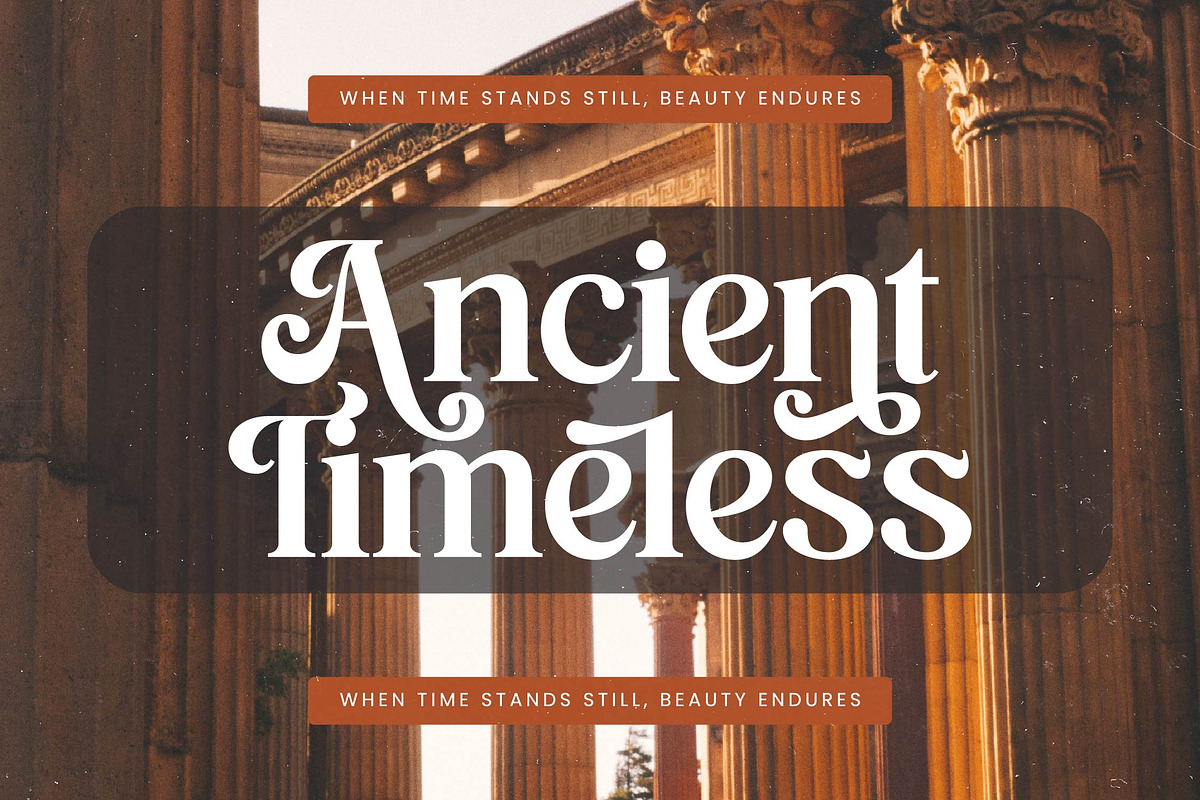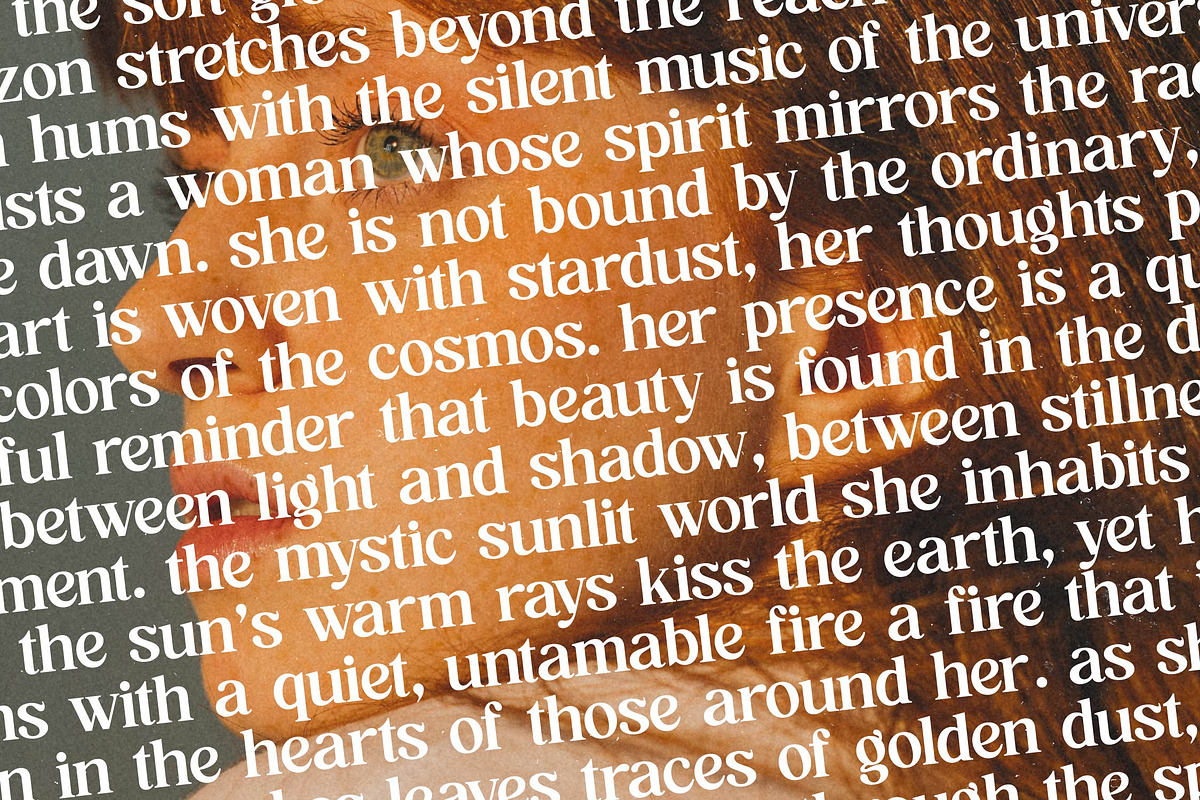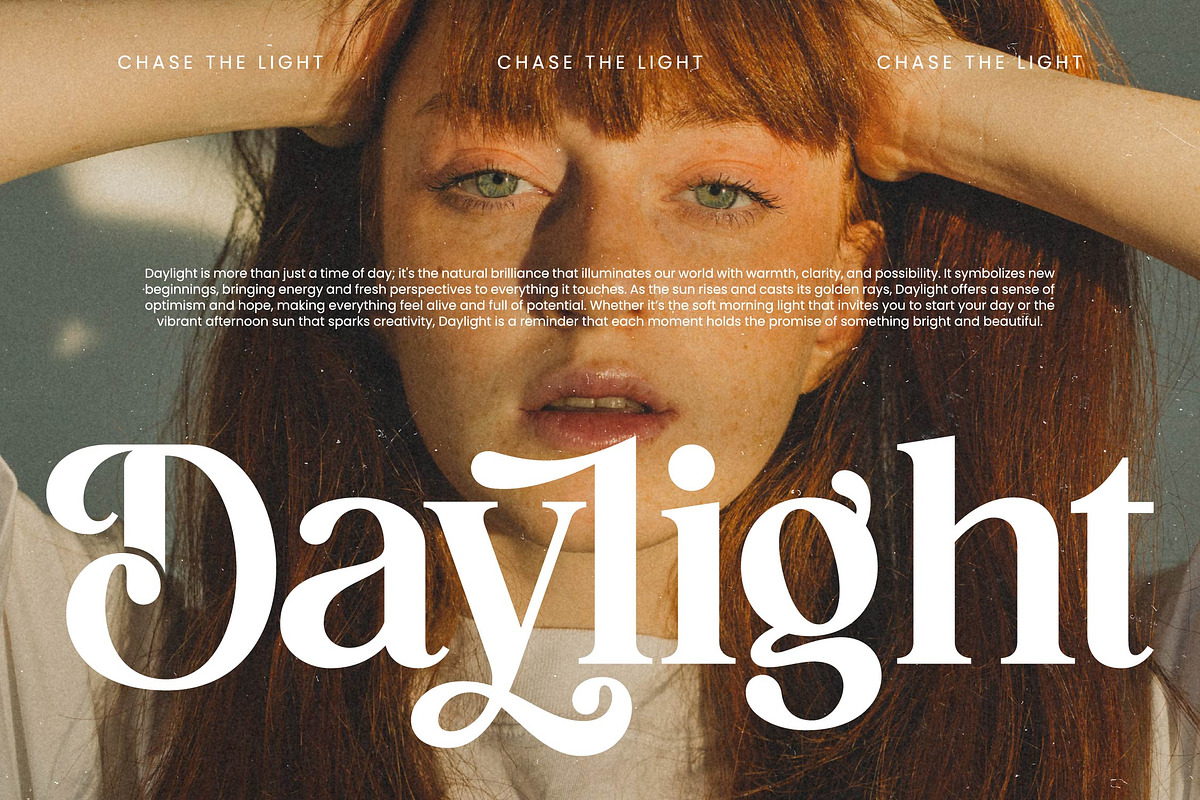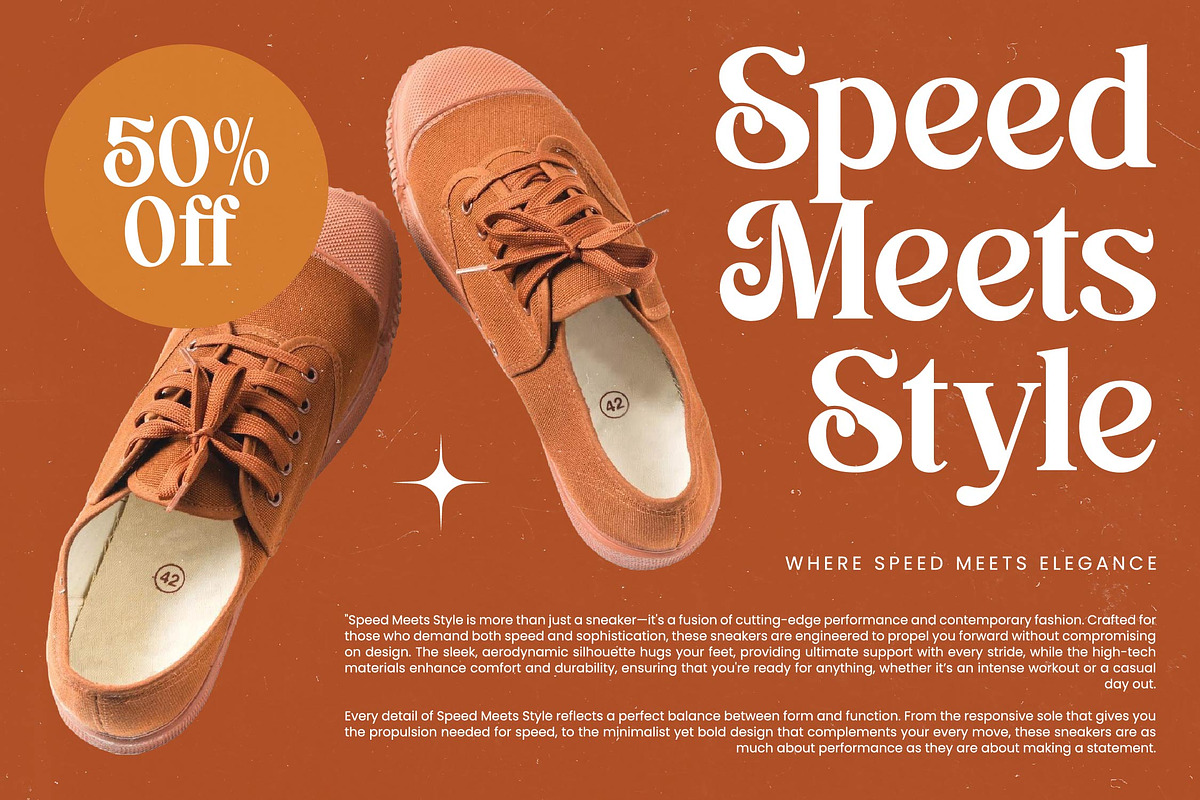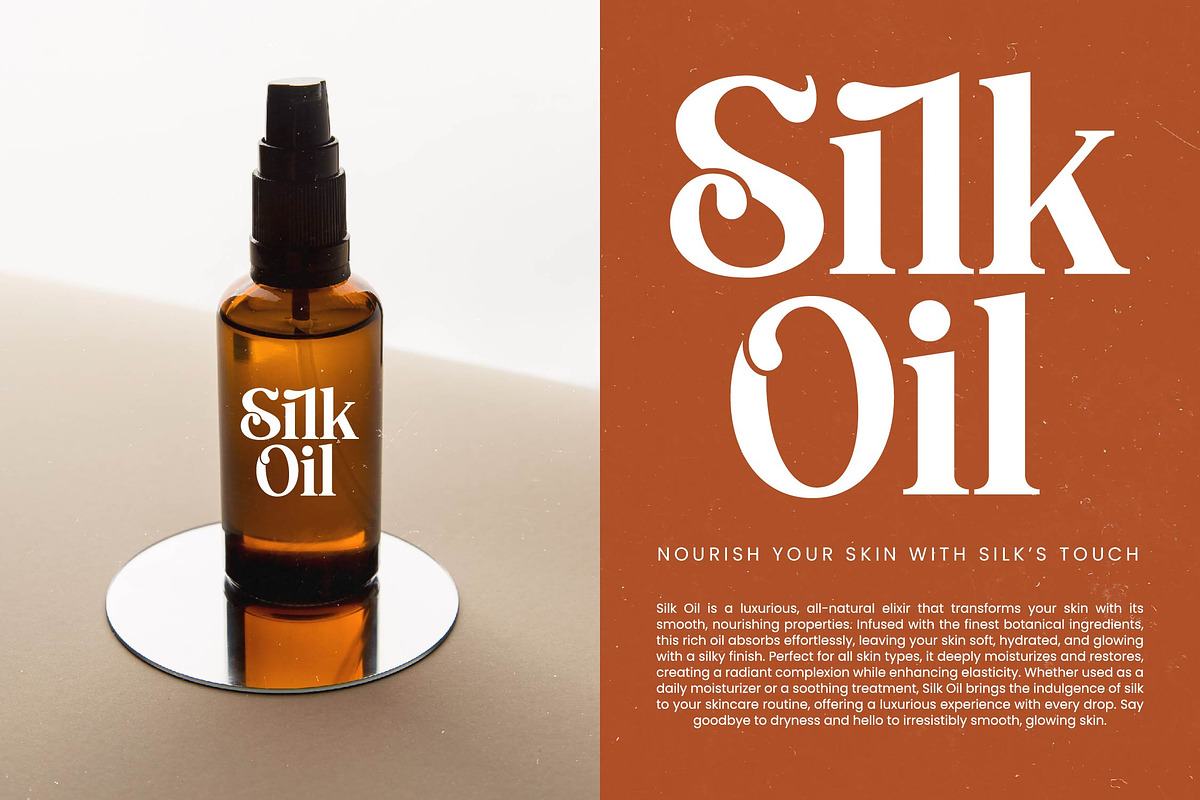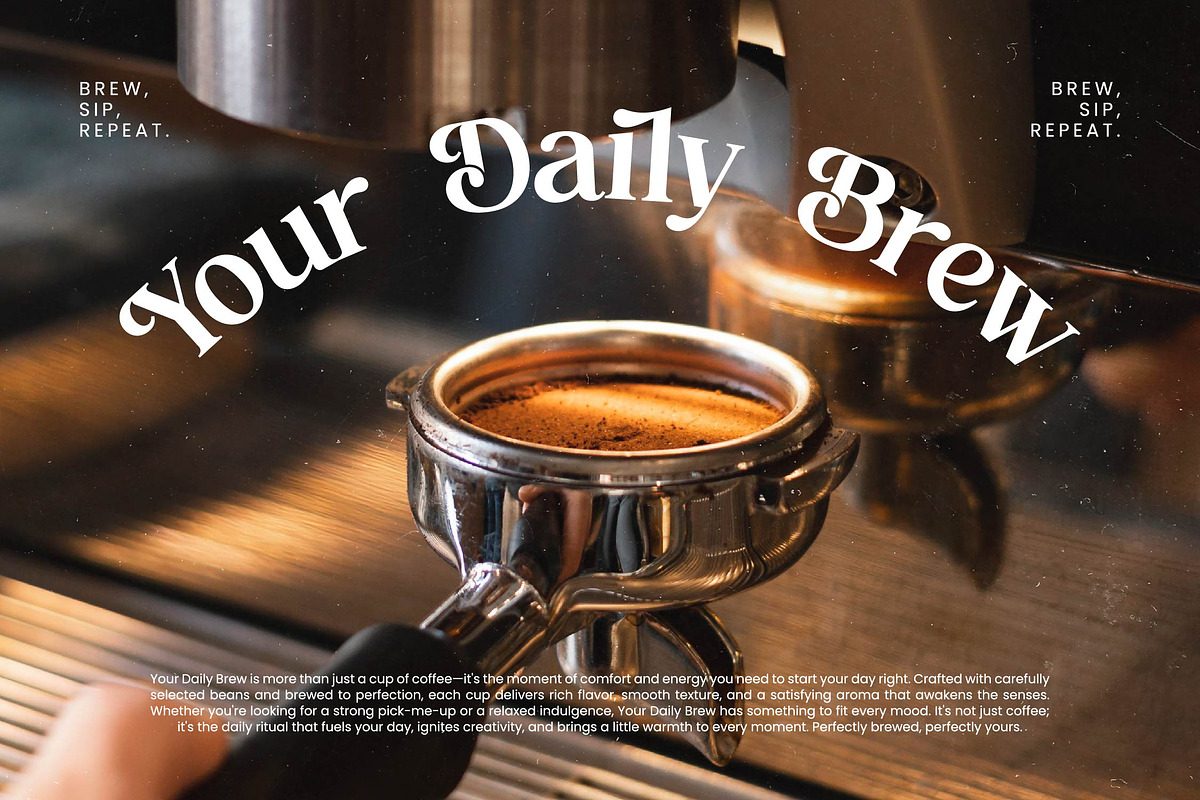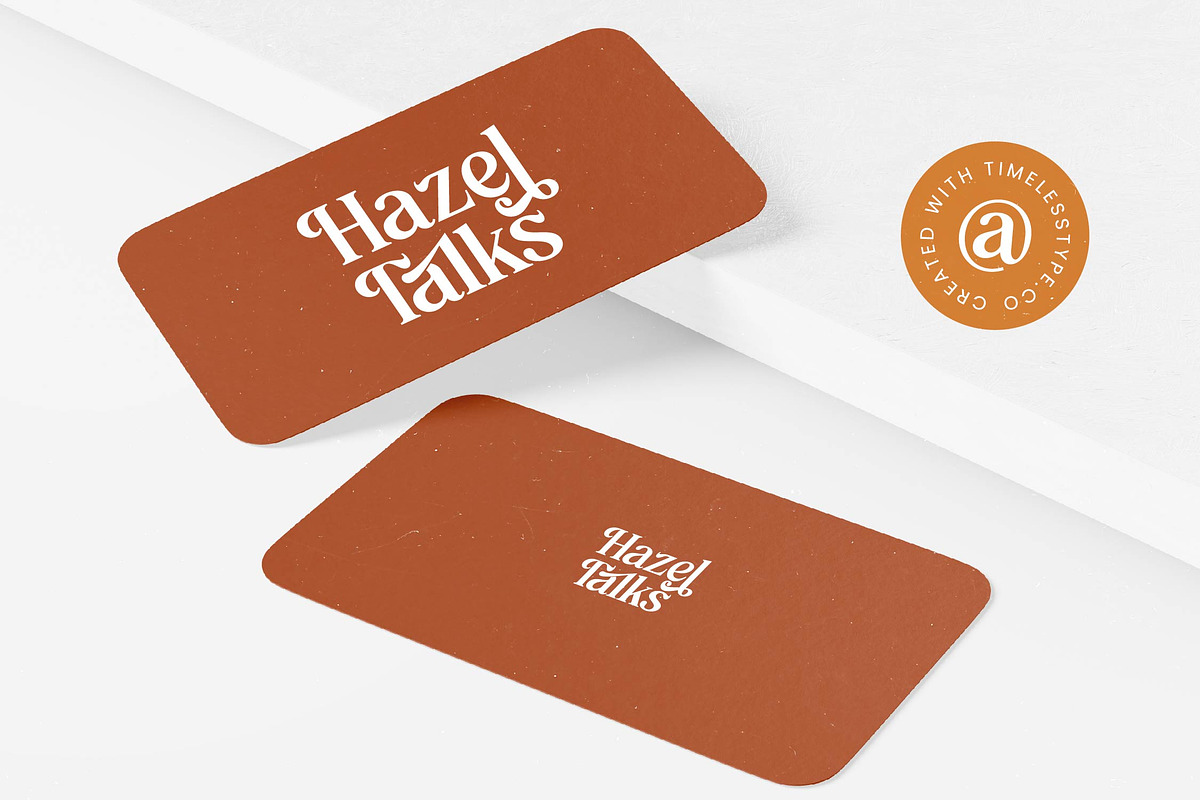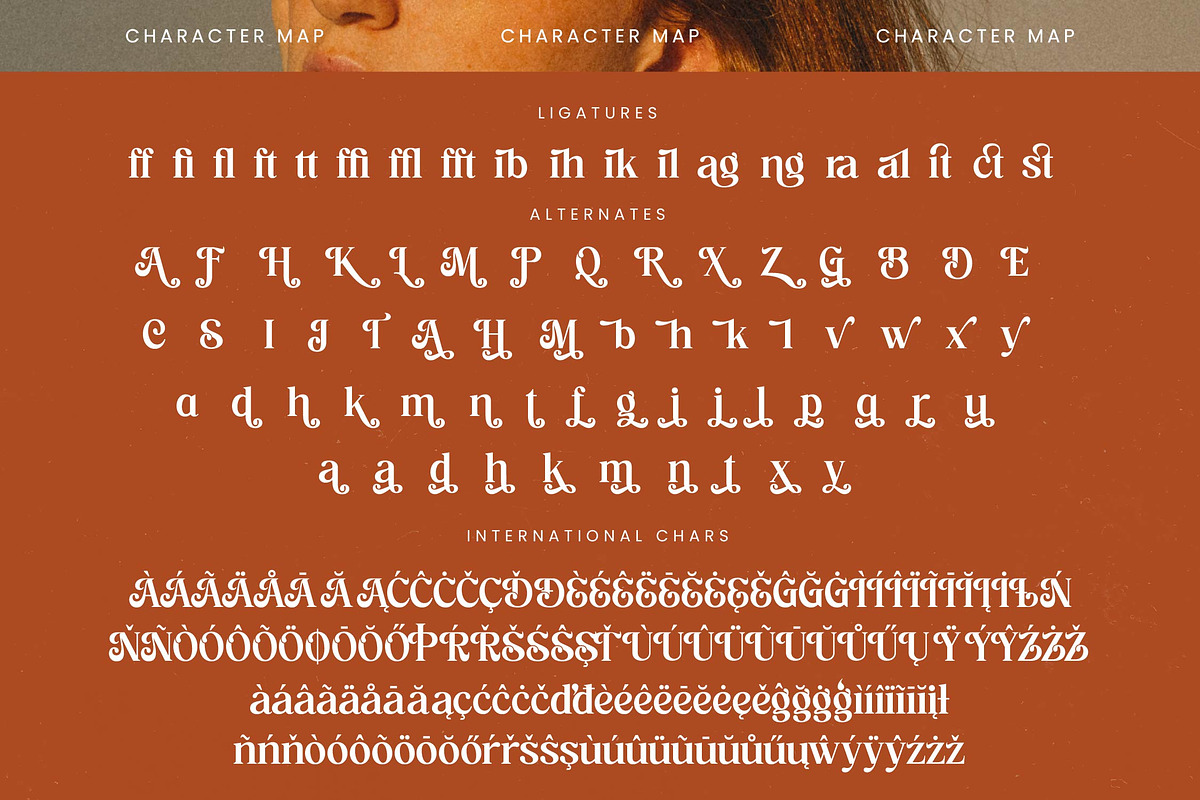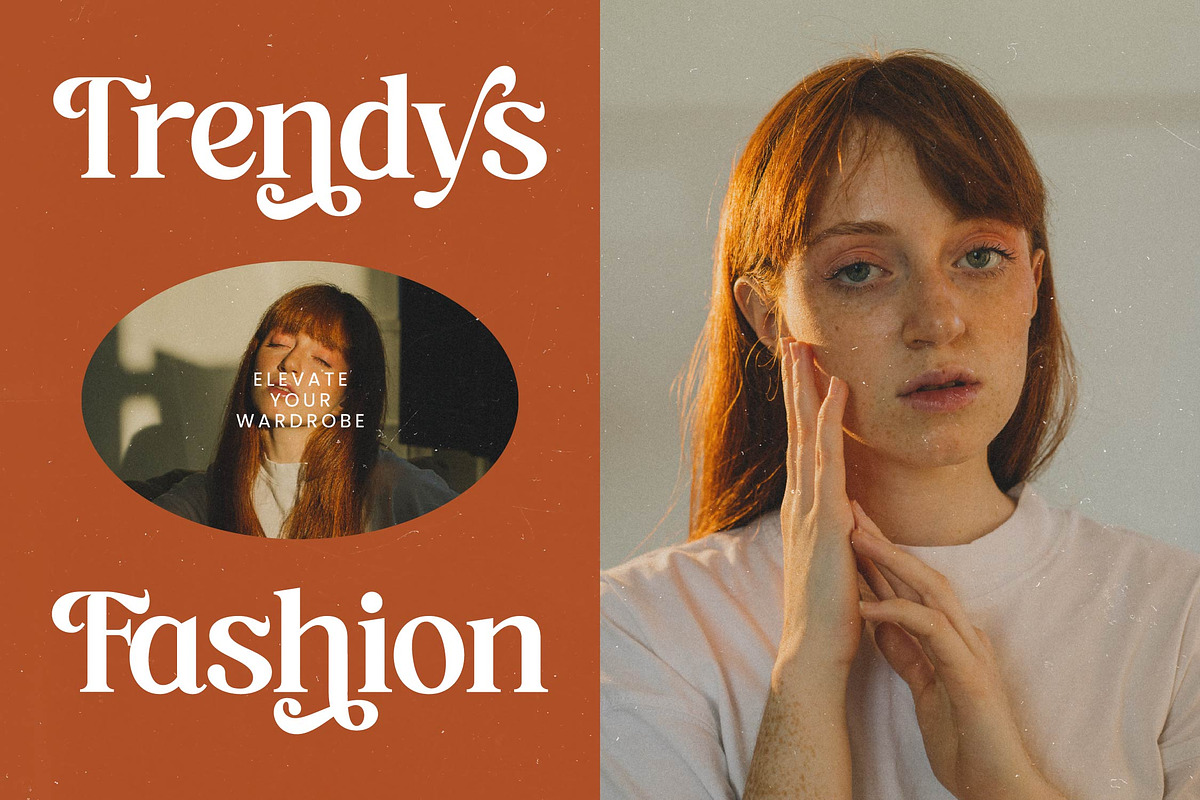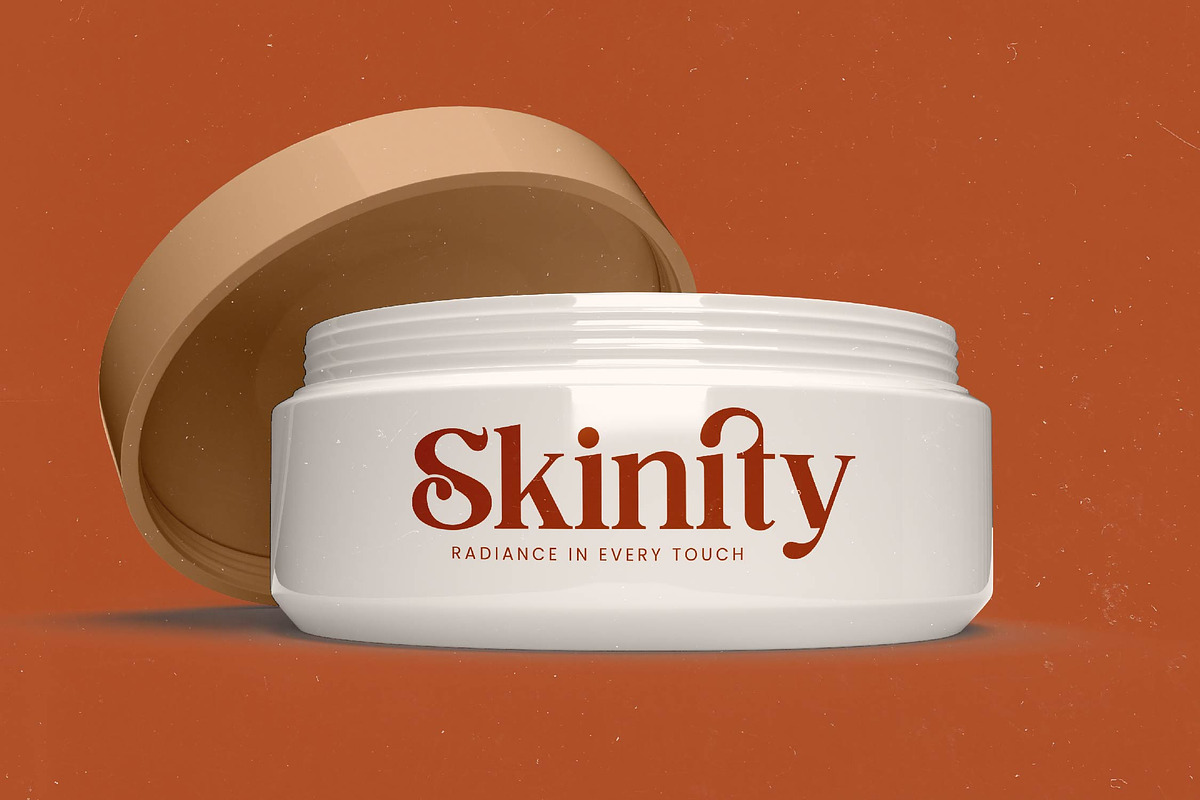
Mystic Sunlite Groovy Serif Font
Experience the ethereal glow of Mystic Sunlite, a typeface designed to infuse your creative projects with a sense of wonder and timeless elegance. This groovy serif display font captures the perfect balance between vintage charm and contemporary sophistication.
Inspired by the hazy, golden light of late afternoon and the free-spirited energy of the 1970s, this font evokes a sense of nostalgia while remaining grounded in modern aesthetics. It draws from the curves of retro psychedelia and refines them into a polished, high-end display face that feels both grounded and mystical.
This modern serif display is meticulously crafted to deliver a powerful branding impact through its unique silhouettes and flowing lines. As a luxury typography solution, it offers a high-contrast serif look that demands attention, making it an essential editorial font for those who value distinctiveness and grace.
Aligning perfectly with the current modern serif trend, this typeface addresses the growing demand for character-driven typography that tells a story. It stands out among editorial display fonts by offering a bespoke feel that elevates any digital or print layout to professional standards.
Ideal for high-end logo design and comprehensive branding systems, this font shines in editorial layouts, boutique packaging, and elevated wedding invitations. Its versatile nature makes it a favorite for the fashion industry, providing a chic and sophisticated backdrop for lookbooks and social media campaigns.
Unlock endless creative possibilities with a rich set of 19 ligatures and 57 unique alternates that allow for custom-tailored letterforms. The font also includes elegant swashes and full multilingual support with extensive international characters, ensuring your message reaches a global audience with ease.
- Ligature 19 Alternate 57